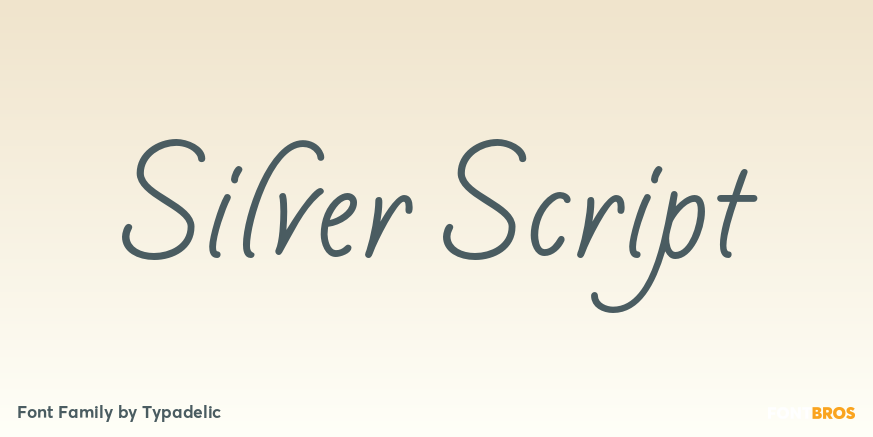
Silver Script is a free-flowing and refined script typeface. Elegant and informal is a combination not easy to capture, but Silver Script fits that description nicely. Use the regular lowercase characters in combination with flourishes for a calligraphic…